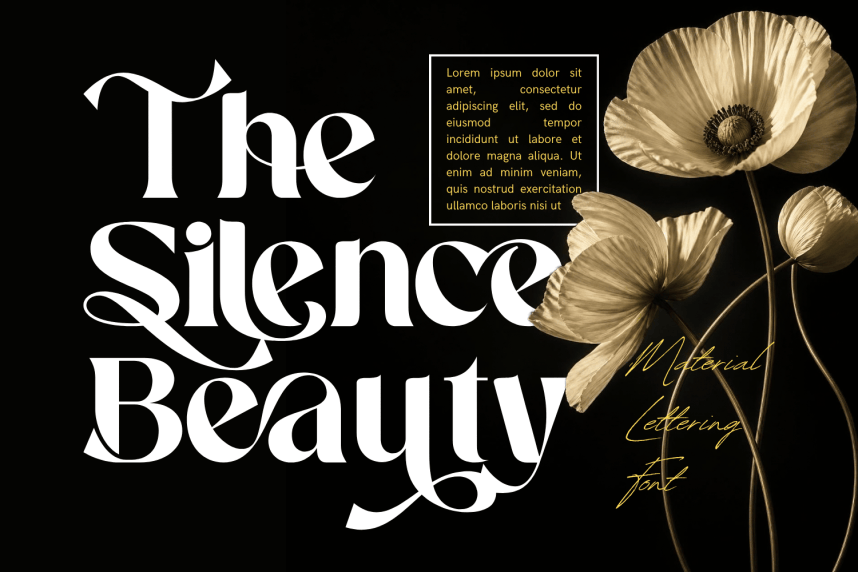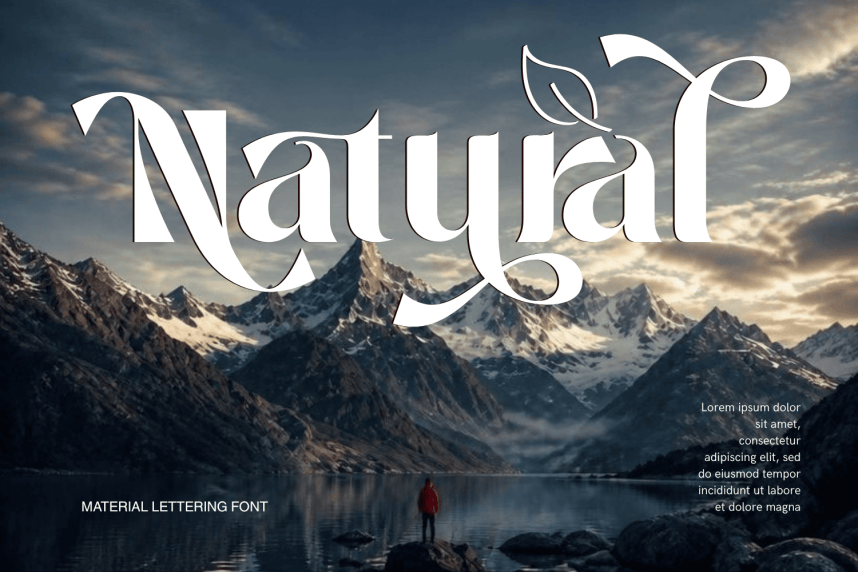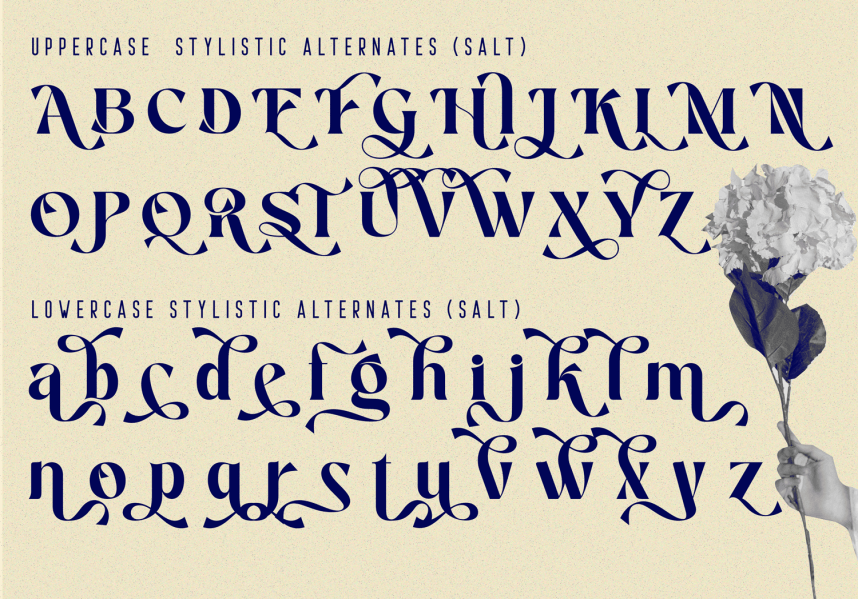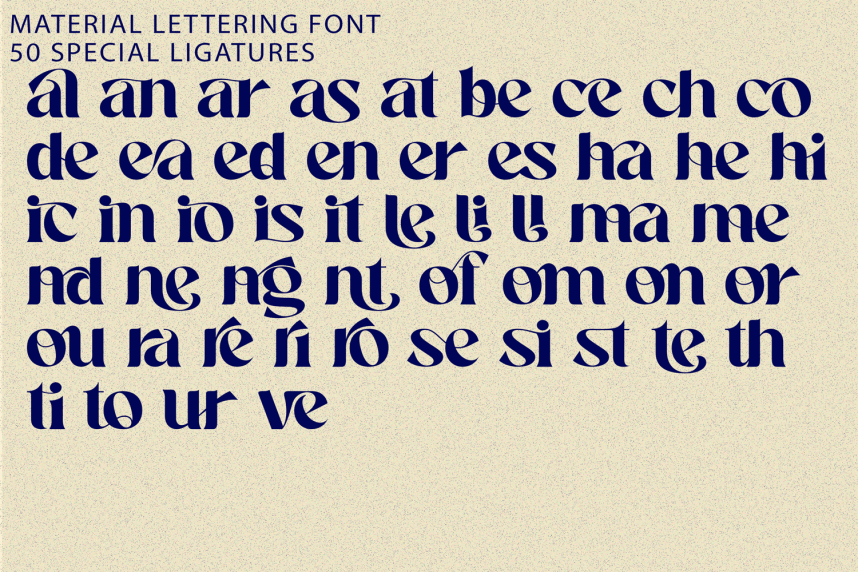
Material Lettering – Luxury Serif Font – Modern Luxury Serif & High-Fashion Editorial Display Font is a breathtaking modern luxury display serif typeface born at the opulent intersection of haute couture fashion, liquid ribbon calligraphy, and high-editorial typography. Defined by its extreme stroke contrast, dramatic sweeping swashes, and razor-sharp spiky terminals, this font brings an irresistible sense of romantic elegance and boutique sophistication to modern graphic design.
Featuring an exquisite suite of custom ligatures and fluid swash alternates, Material Lettering effortlessly transforms standard display headlines into bespoke, handcrafted logotypes. Its flowing silk-like baseline swoops and precision-engineered proportions make it the ultimate typographic choice for luxury fashion brandings, high-end perfume and cosmetics packaging, editorial magazine covers, romantic wedding stationery, and boutique logos.
🔤Features:
Uppercase & Lowercase Letters
Stylistic Alternates A-z
Around 50 Special Ligatures & Alternates
Numerals & Punctuation
Accented Characters for multilingual support
🔤About 50 ligatures combined with Stylistic Alternates Font:
al an ar as at be ce ch co de ea ed en er es ha he hi ic in io is it le li ll ma me nd ne ng nt of om on or ou ra re ri ro se si st te th ti to ur ve